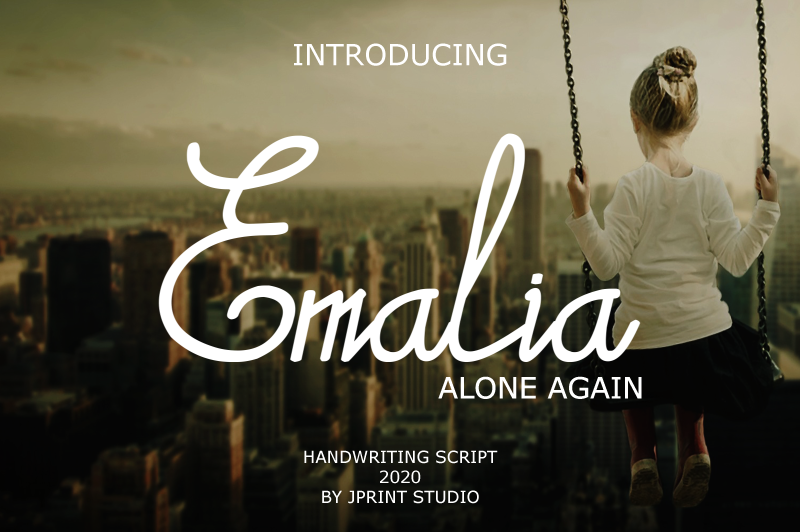
Font name: | Emalia Script |
Author: | Gais Zaelani |
Note by Gais Zaelani | |
Introducing Emalia, Emalia is a cute and casual handwritten font with an incredibly friendly feel. It features gorgeous swashes and ligatures that make this script incredibly versatile. Whether you�re looking for fonts for Instagram or calligraphy scripts for DIY projects, Emalia will turn any creative idea into a true piece of art! Ready to use for projects, texts, letters, or whatever you want! NOTE: This demo font is for PERSONAL USE ONLY! But any donation are very appreciated. Paypal account donation: https://www.paypal.me/jprintstudio Link to purchase full version and commercial license : https://www.creativefabrica.com/product/emalia-2/ref/237608/ And follow my Dribble for Update : https://dribbble.com/GaisZ Thank you |